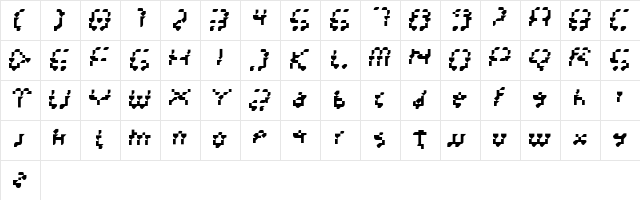
BilligHora Regular Font Preview
BilligHora Regular
BilligHora Regular Font Details
Design Context for BilligHora Typeface
BilligHora is a composed and adaptable typeface that performs quietly and consistently across a wide range of design contexts.